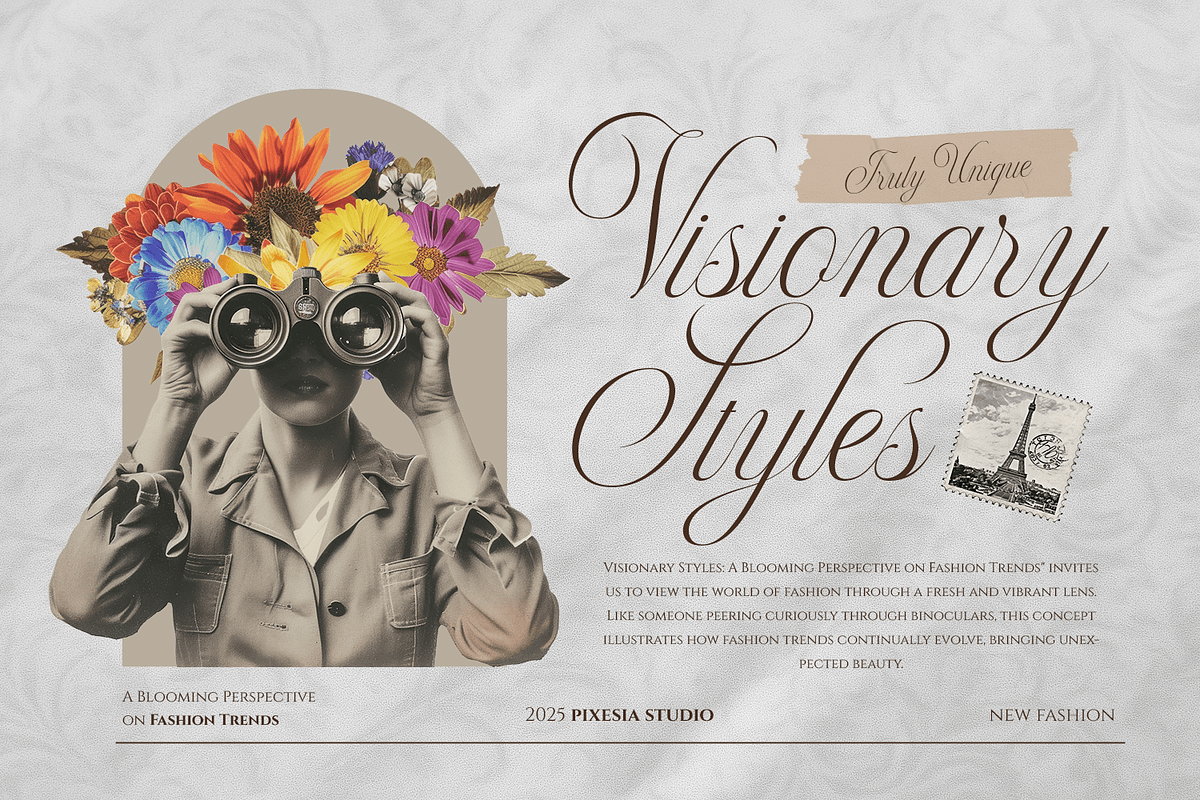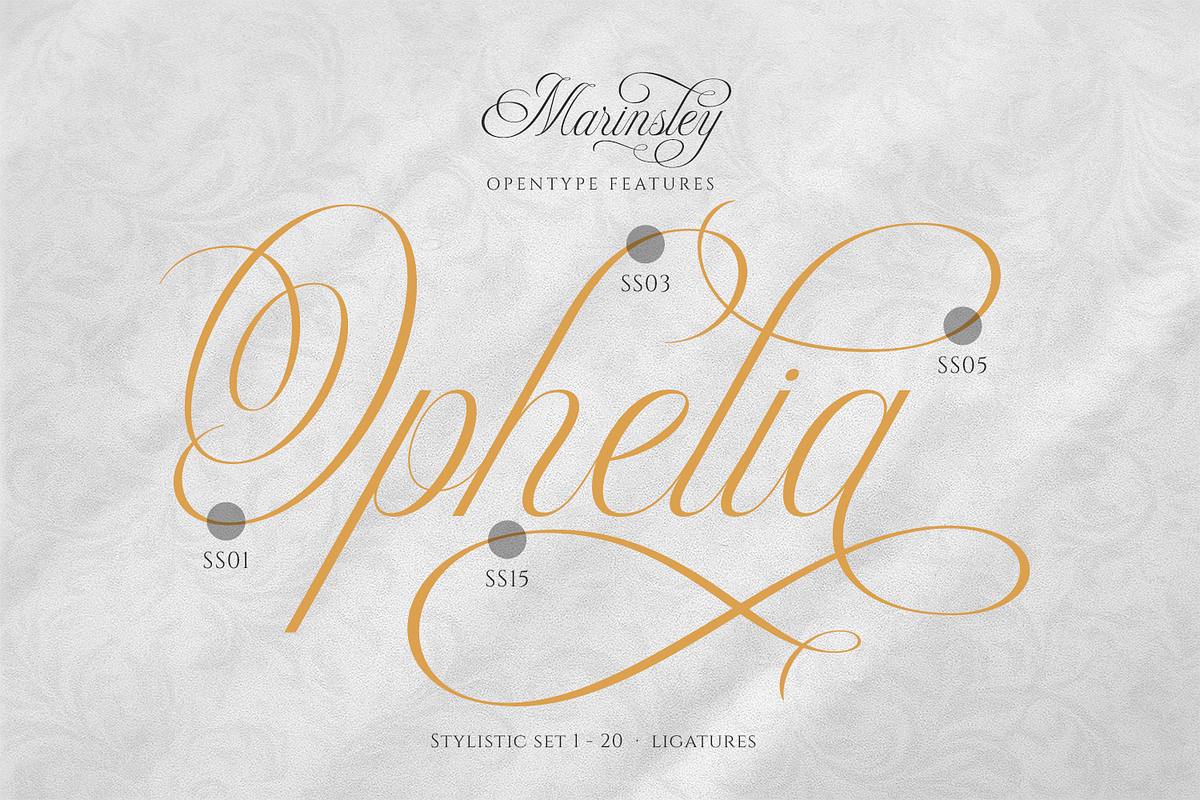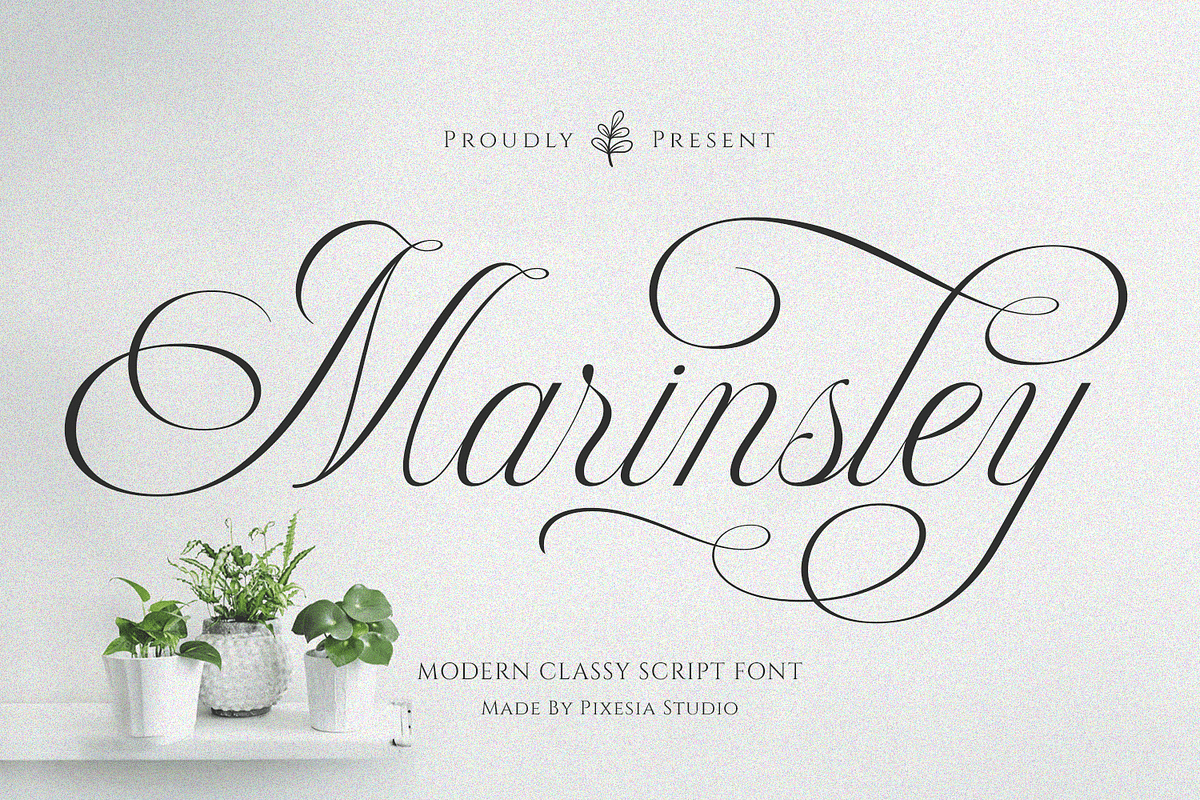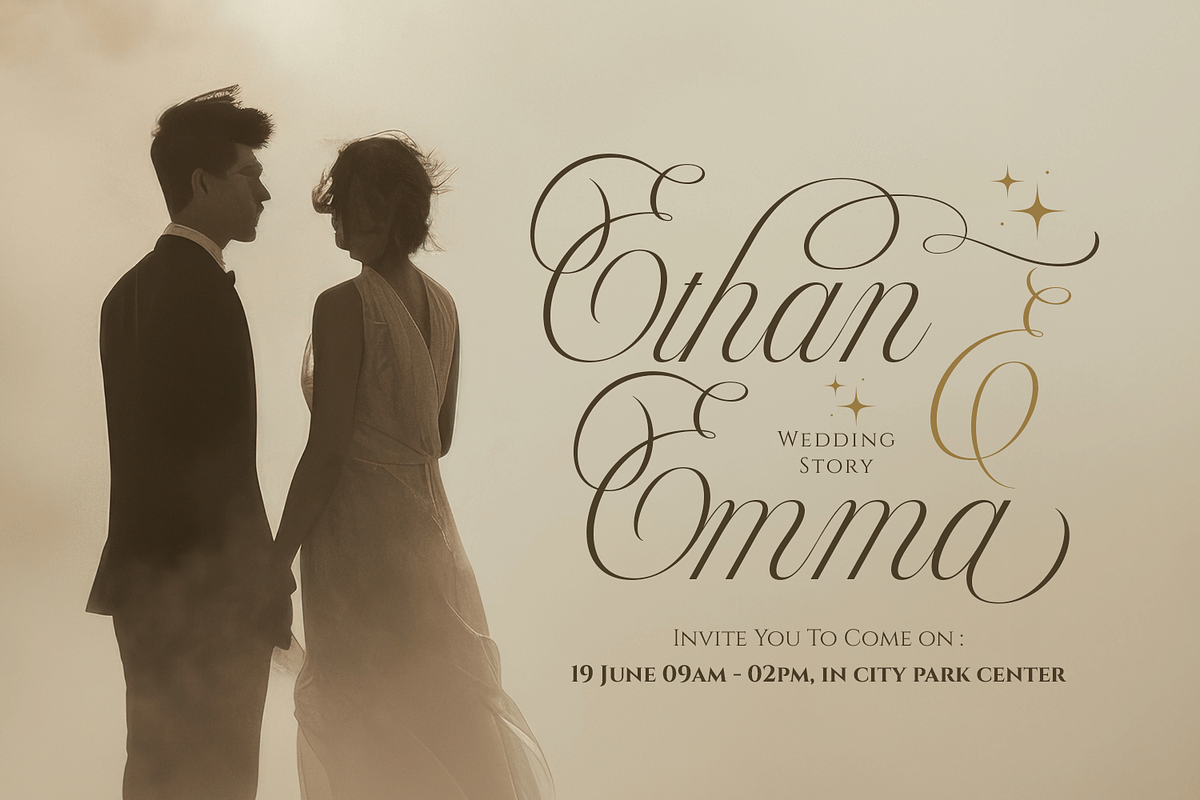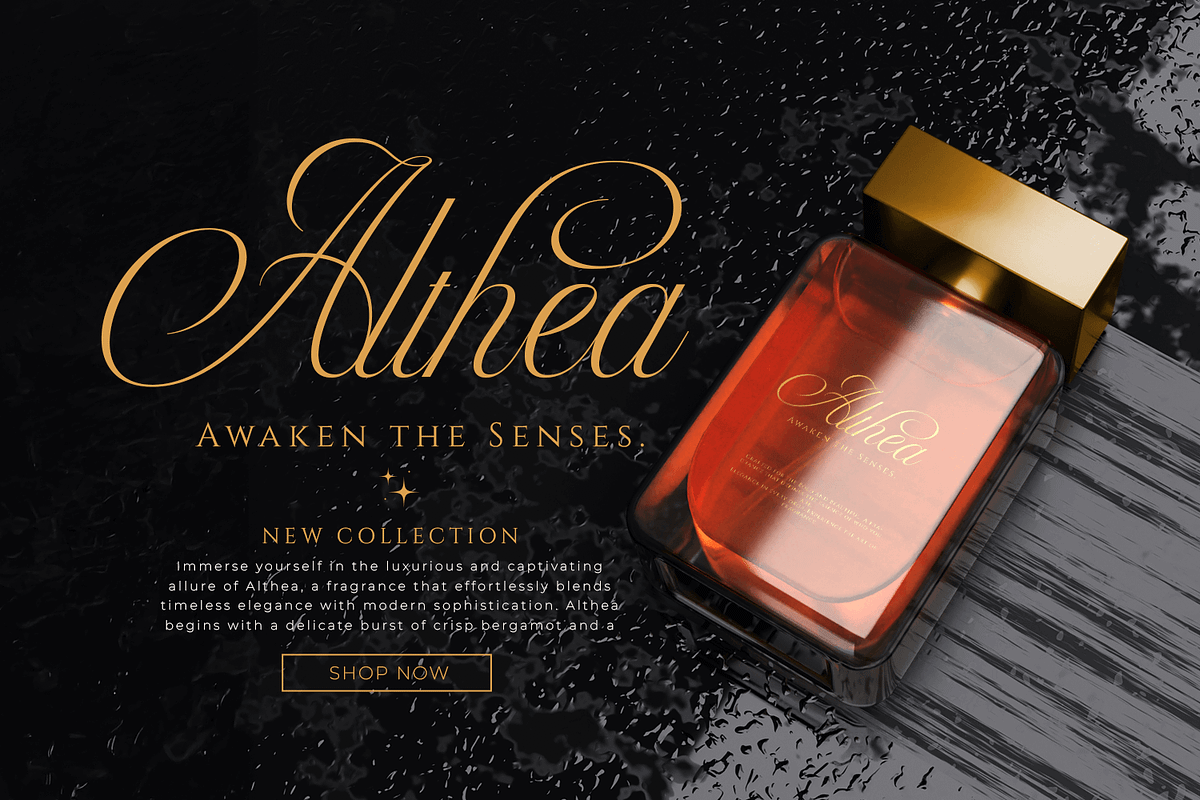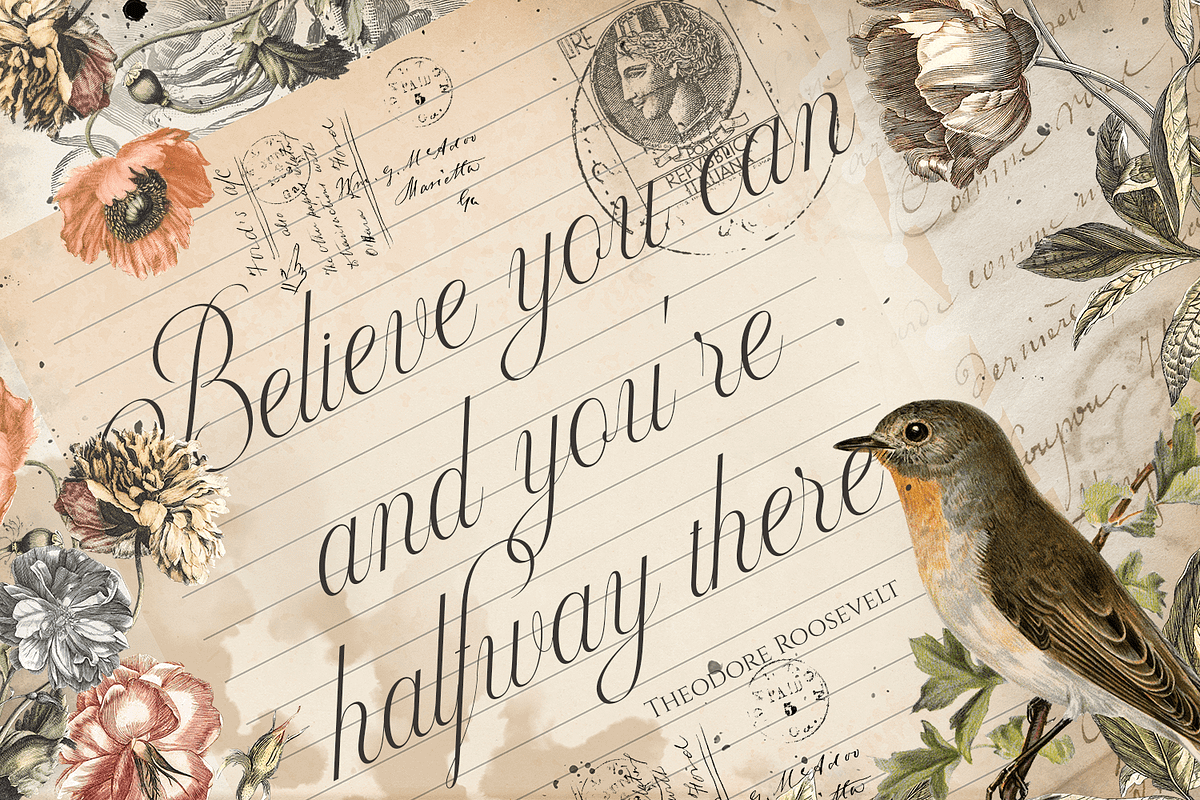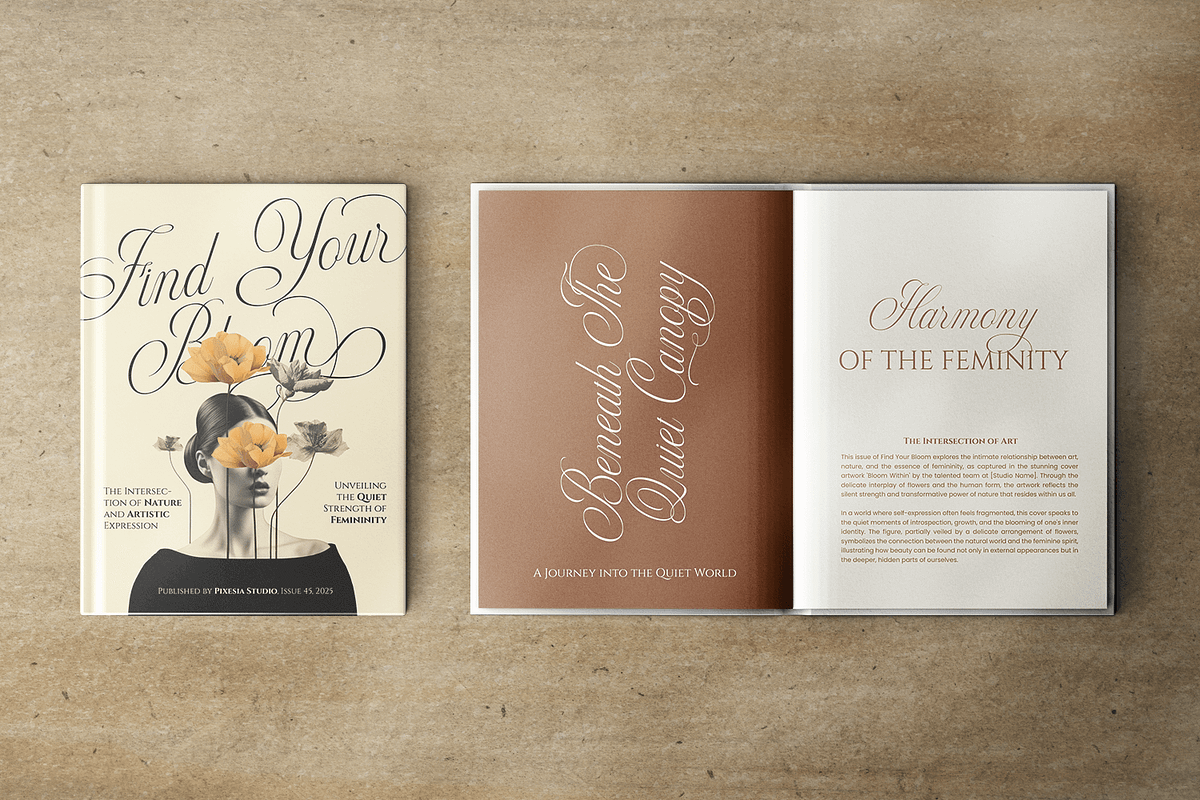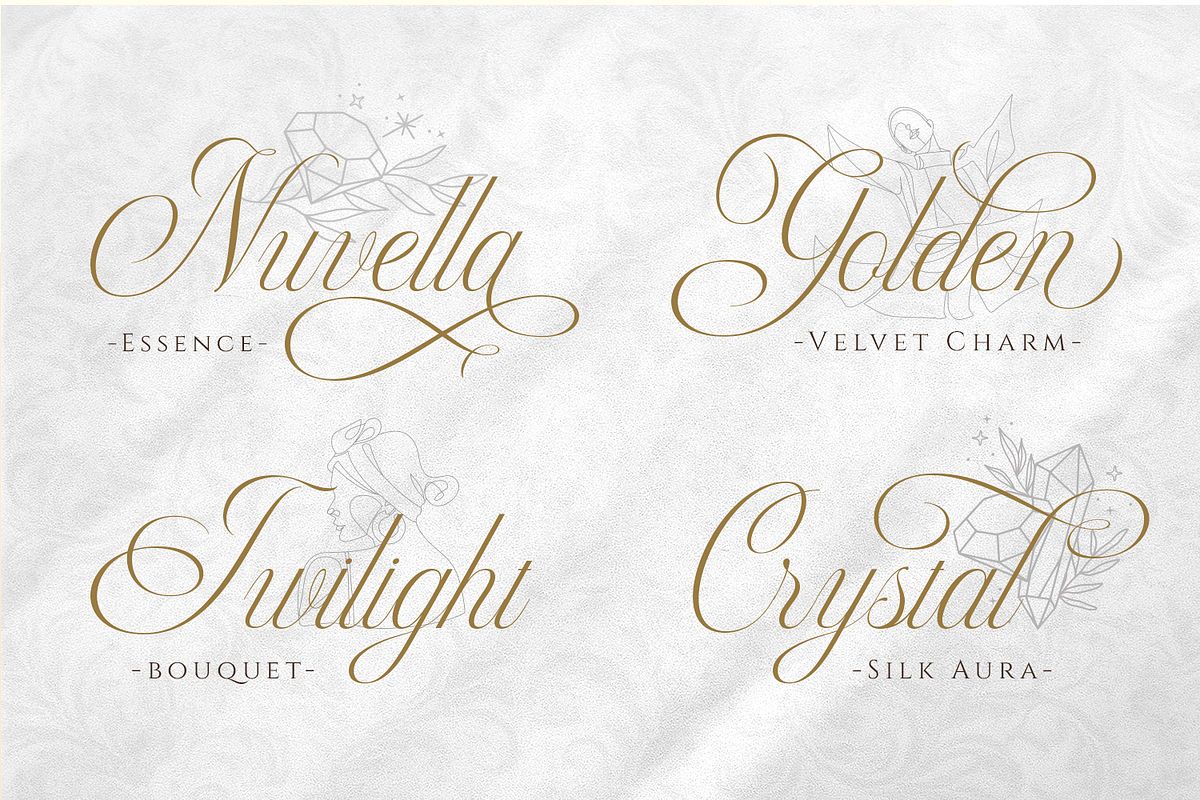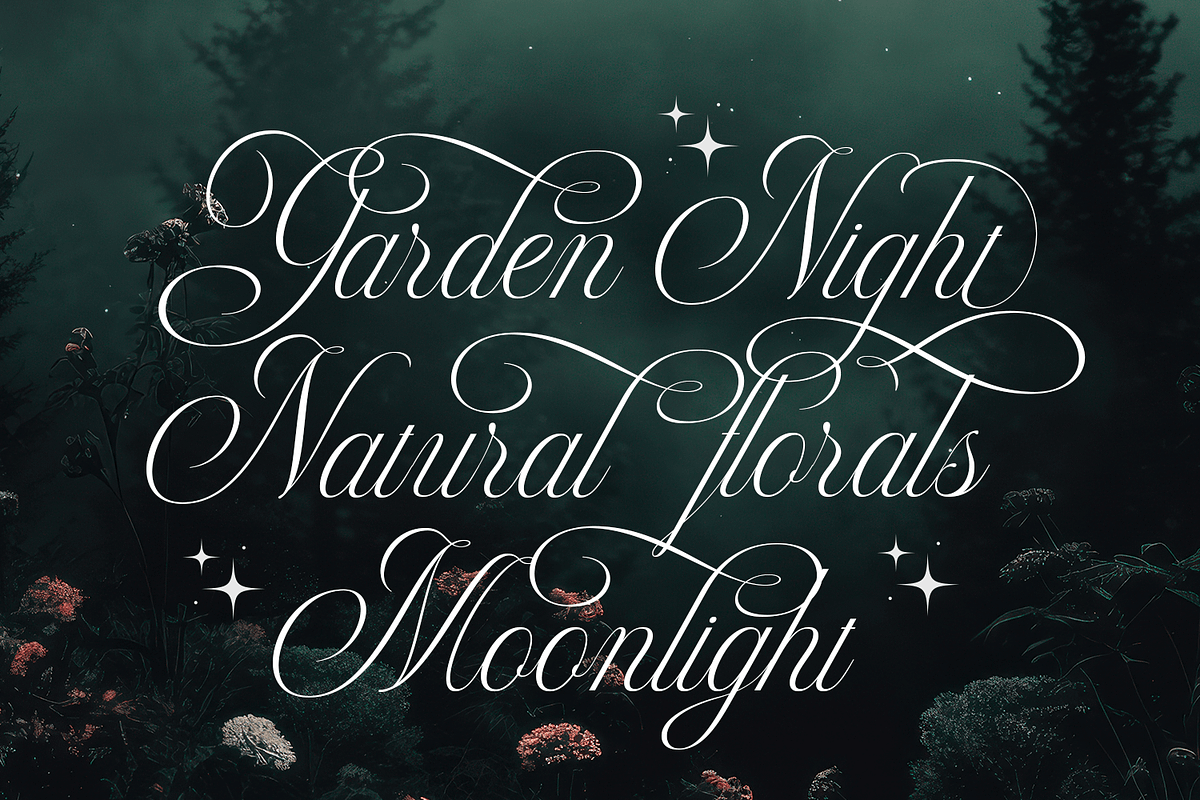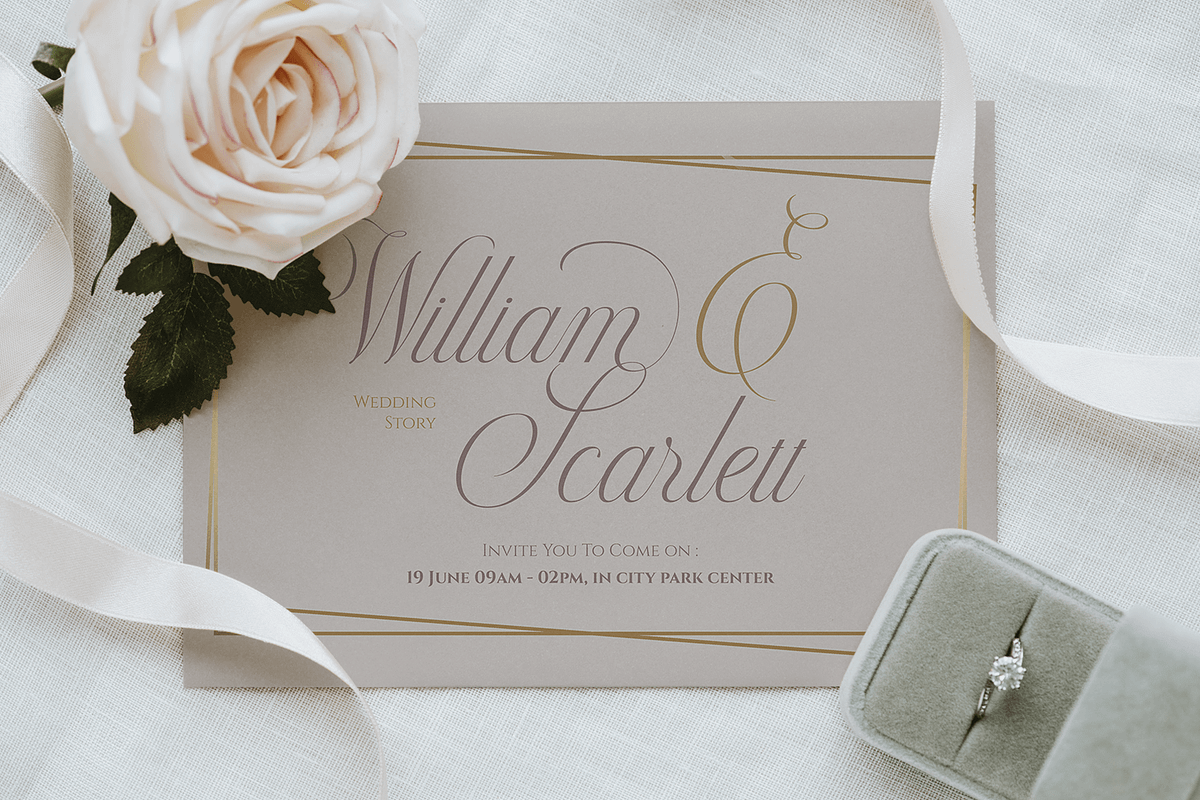
Marinsley – Modern Cursive Script
Introducing Marinsley – Modern Classy Script Font
Marinsley is a refined and graceful script font that embodies elegance and sophistication. Featuring flowing strokes, high-contrast lines, and ornate swashes, this font offers a luxurious look while maintaining a modern charm. Its timeless character makes it a standout choice for creative professionals seeking a stylish and classy typeface.
Marinsley is ideal for wedding invitations, feminine branding, elegant logos, product packaging, social media posts, magazines, business cards, photography, quotes, and other design projects that demand a touch of refinement and beauty.